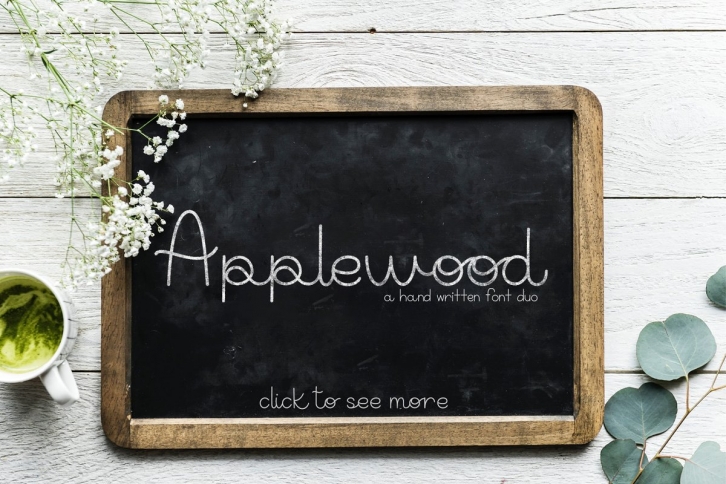
Applewood is a hand crafted font inspired by my handwriting from my schooldays long ago. Remember taking our time to write a letter to mail to a loved one or spending hours writing our latest crushes name on our folders at school? This is the inspiration for Applewood!
Created initially on the iPad in the Procreate app, then traced entirely in Affinity Designer for iPad and finalized in Glyphs.
Applewood is perfect for so many creative projects! Use it to send a personal letter, create invitations, recipe cards and more!